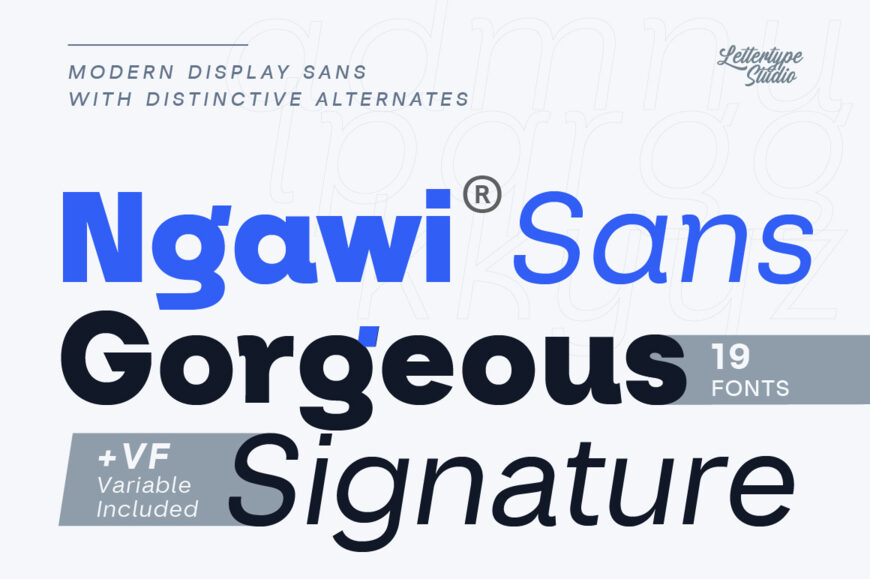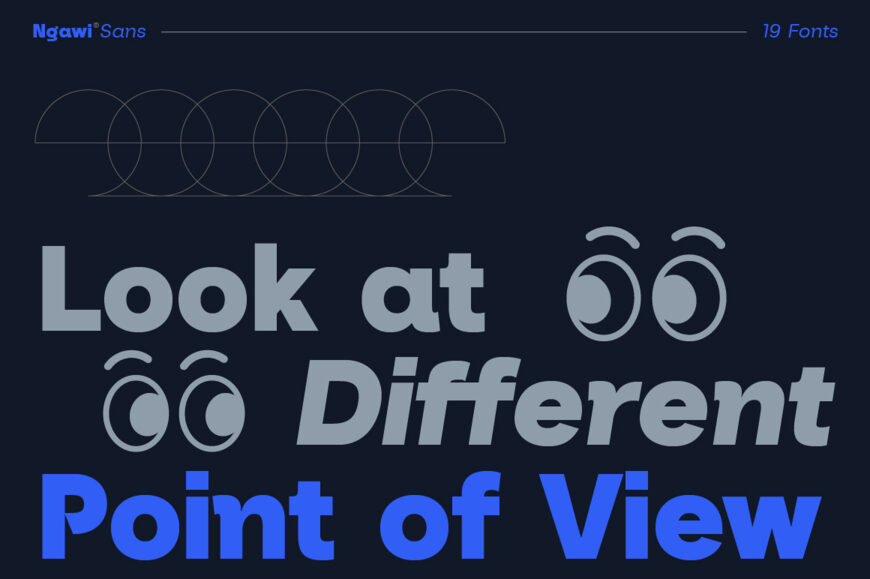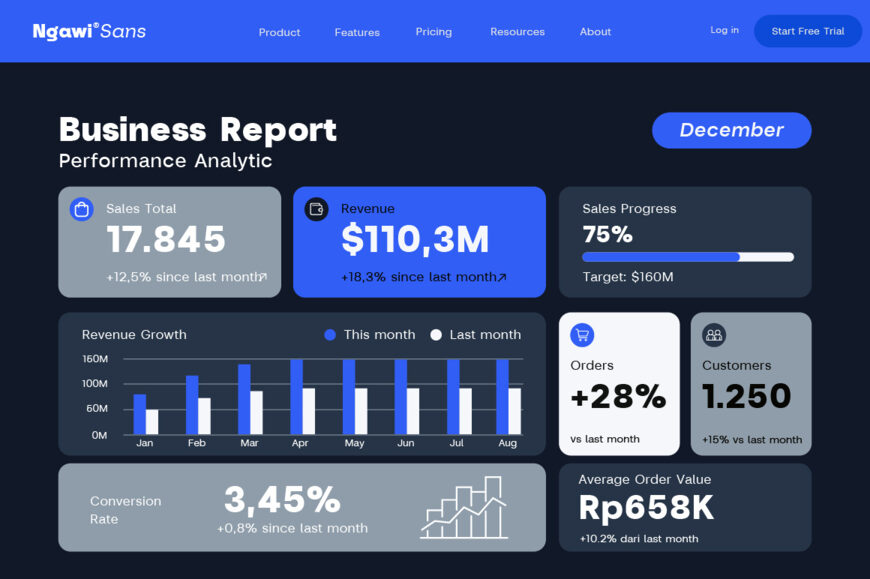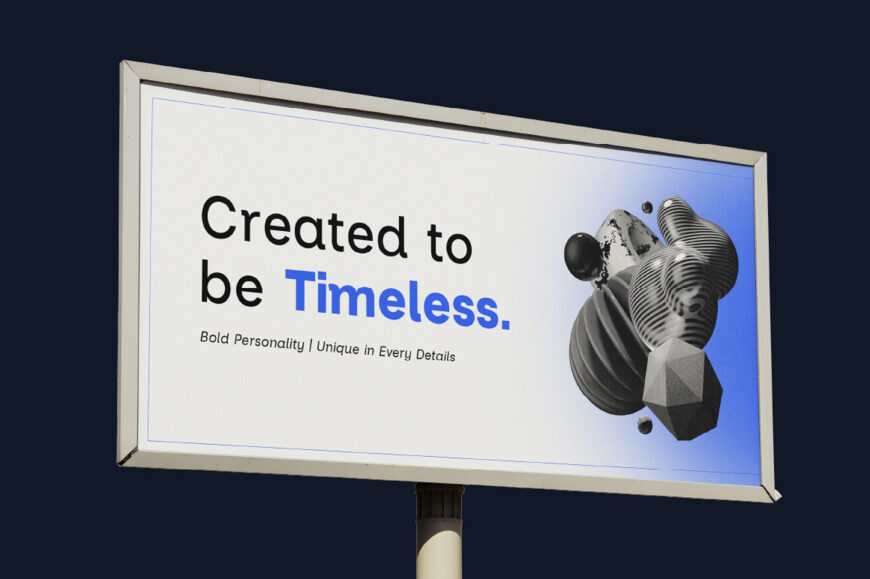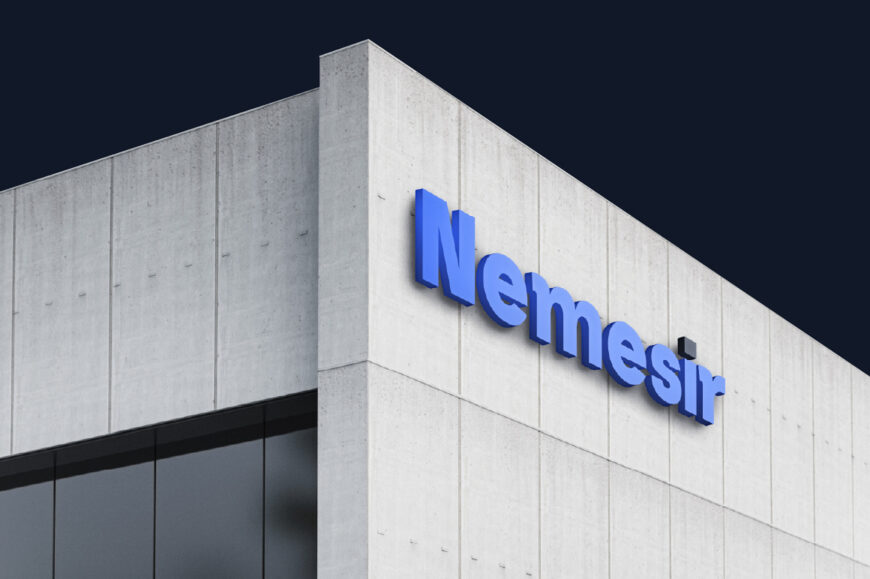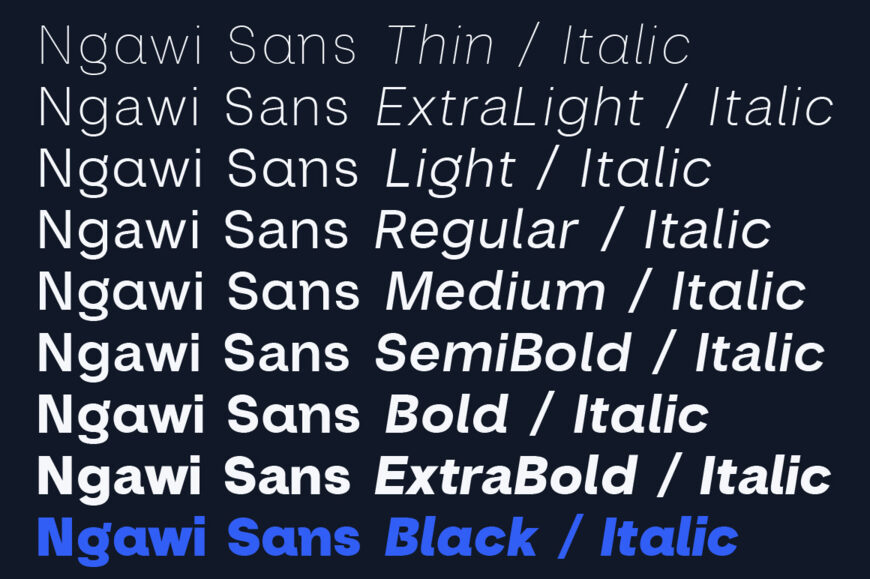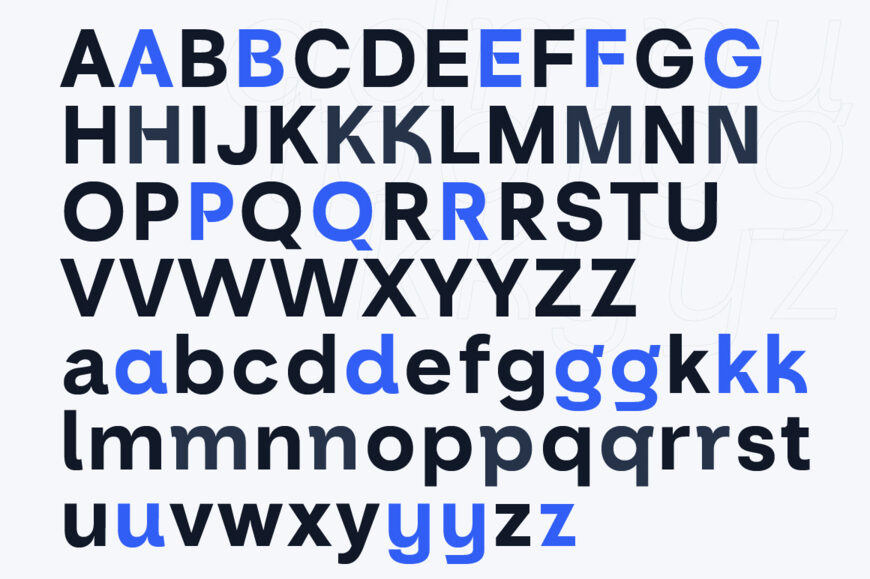
Ngawi Font Family
Ngawi Sans is a modern display sans family created for designers who want the clarity and versatility of a contemporary sans serif with a more recognizable visual personality. Its carefully balanced proportions and distinctive details allow it to move naturally between refined editorial layouts and bold display applications, making it suitable for identities, campaigns, packaging, signage, fashion, beauty, digital products, and creative direction.
The family contains 9 weights, from Thin through Black, with matching Italics across the complete range. This creates 18 static styles in total, complemented by a Variable Font version for more precise control between weights.